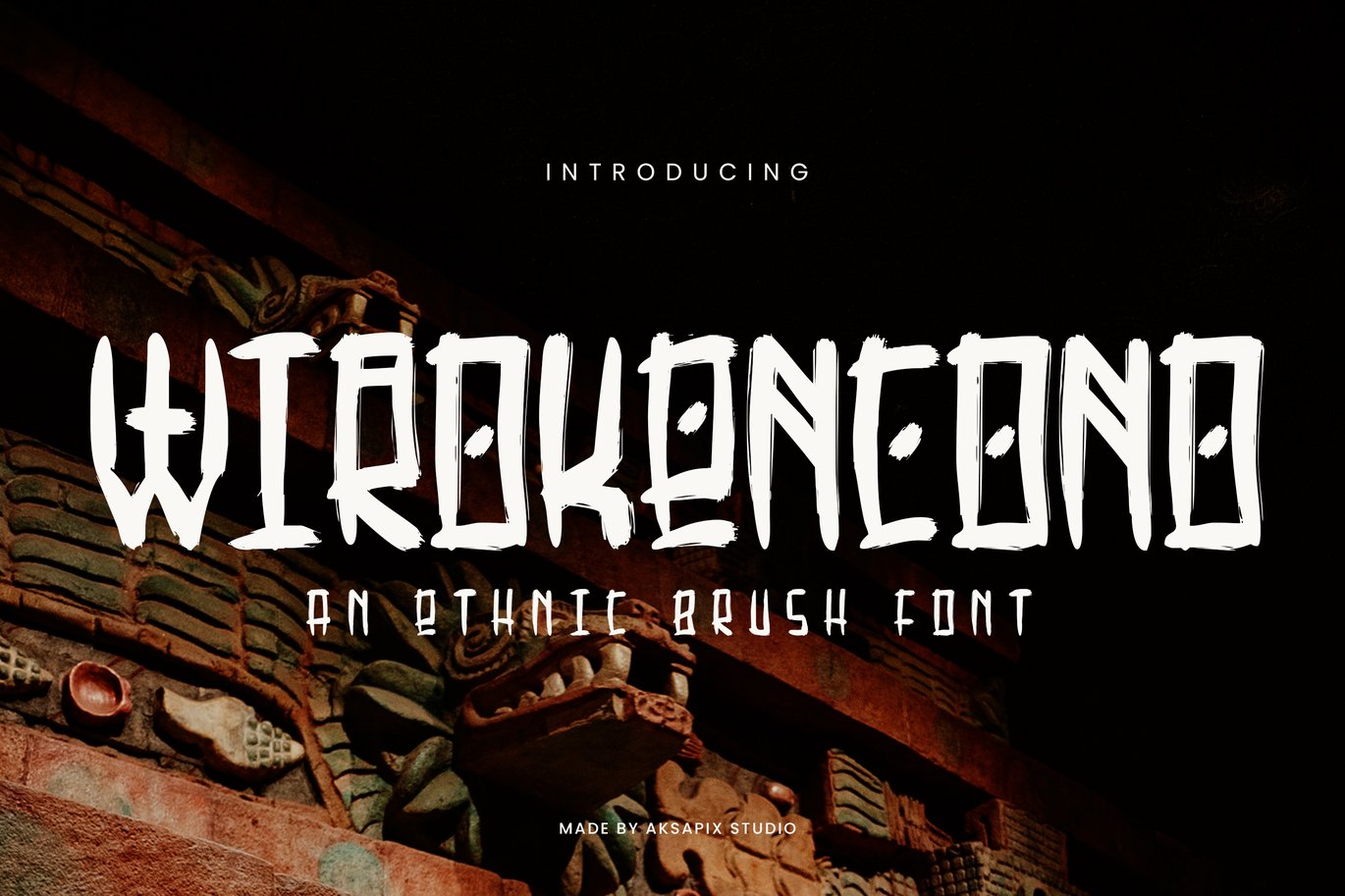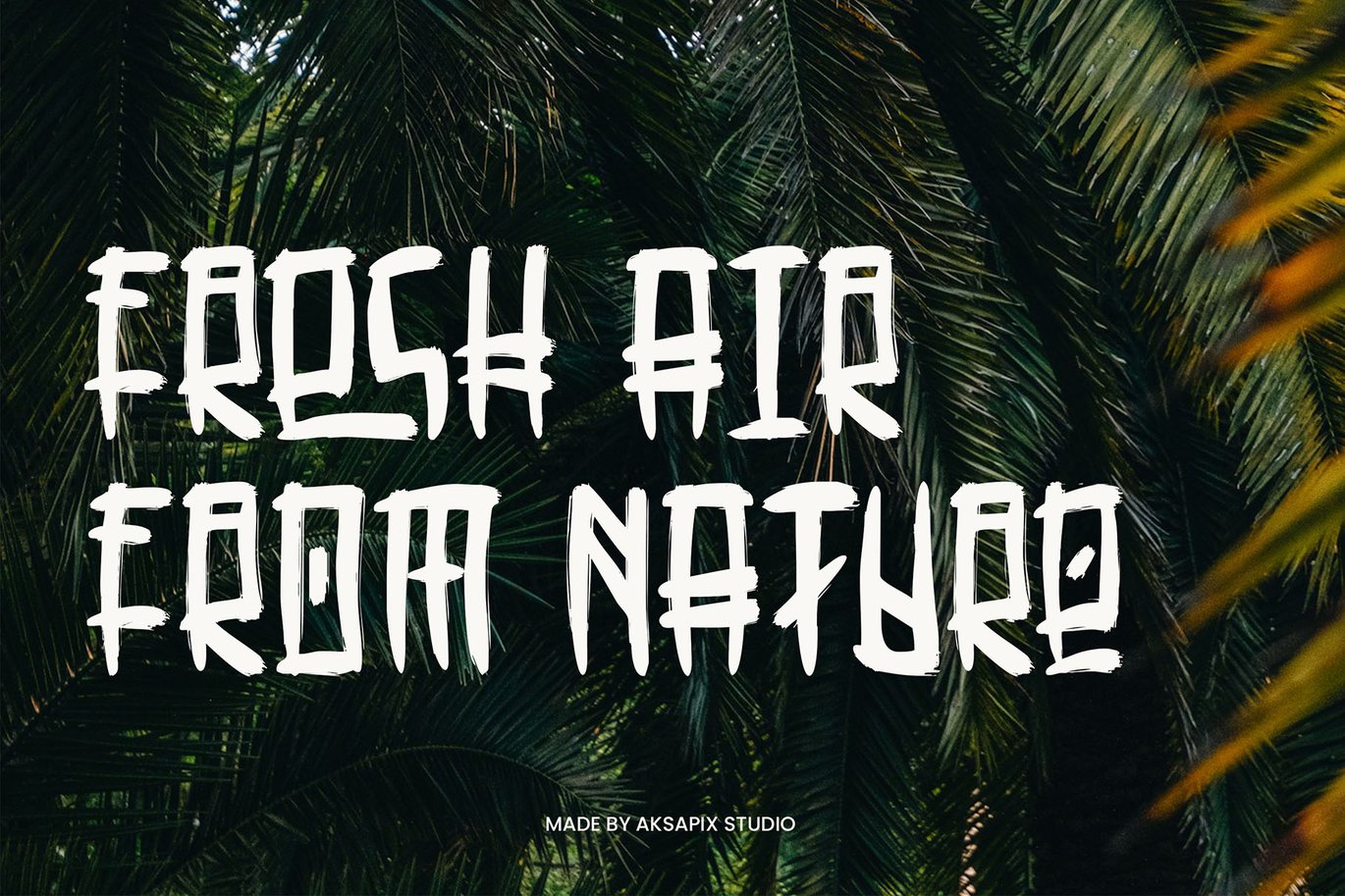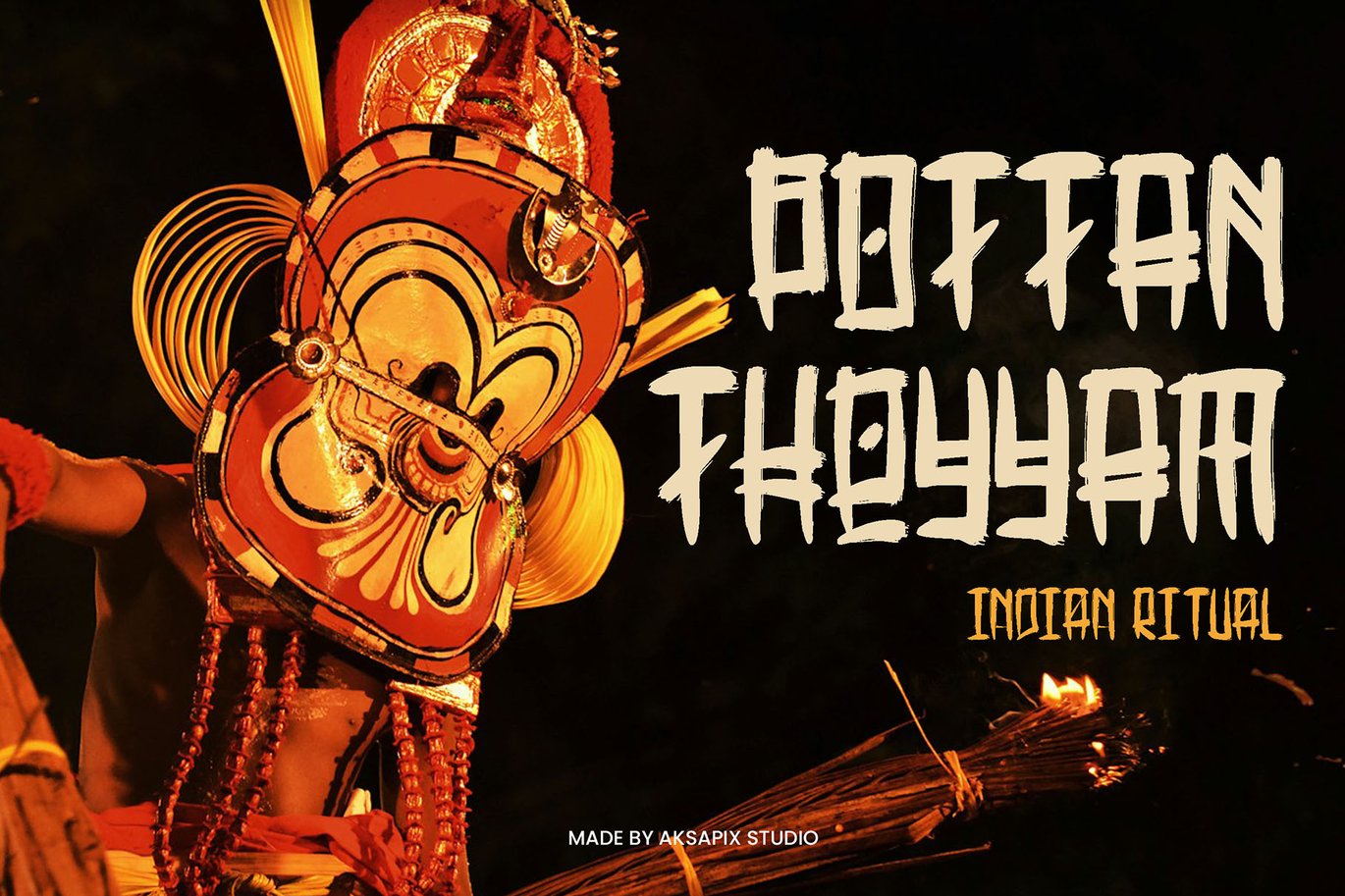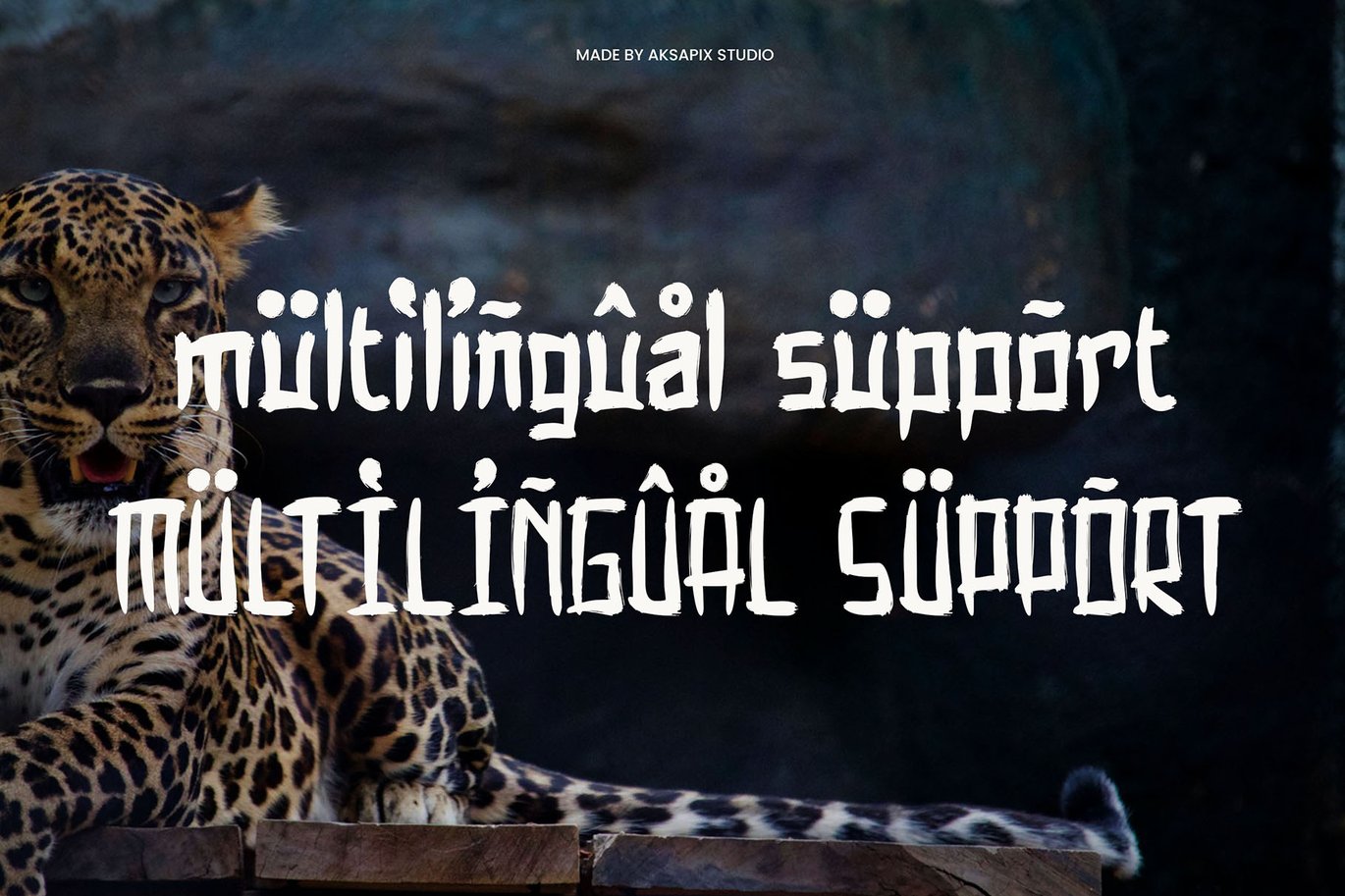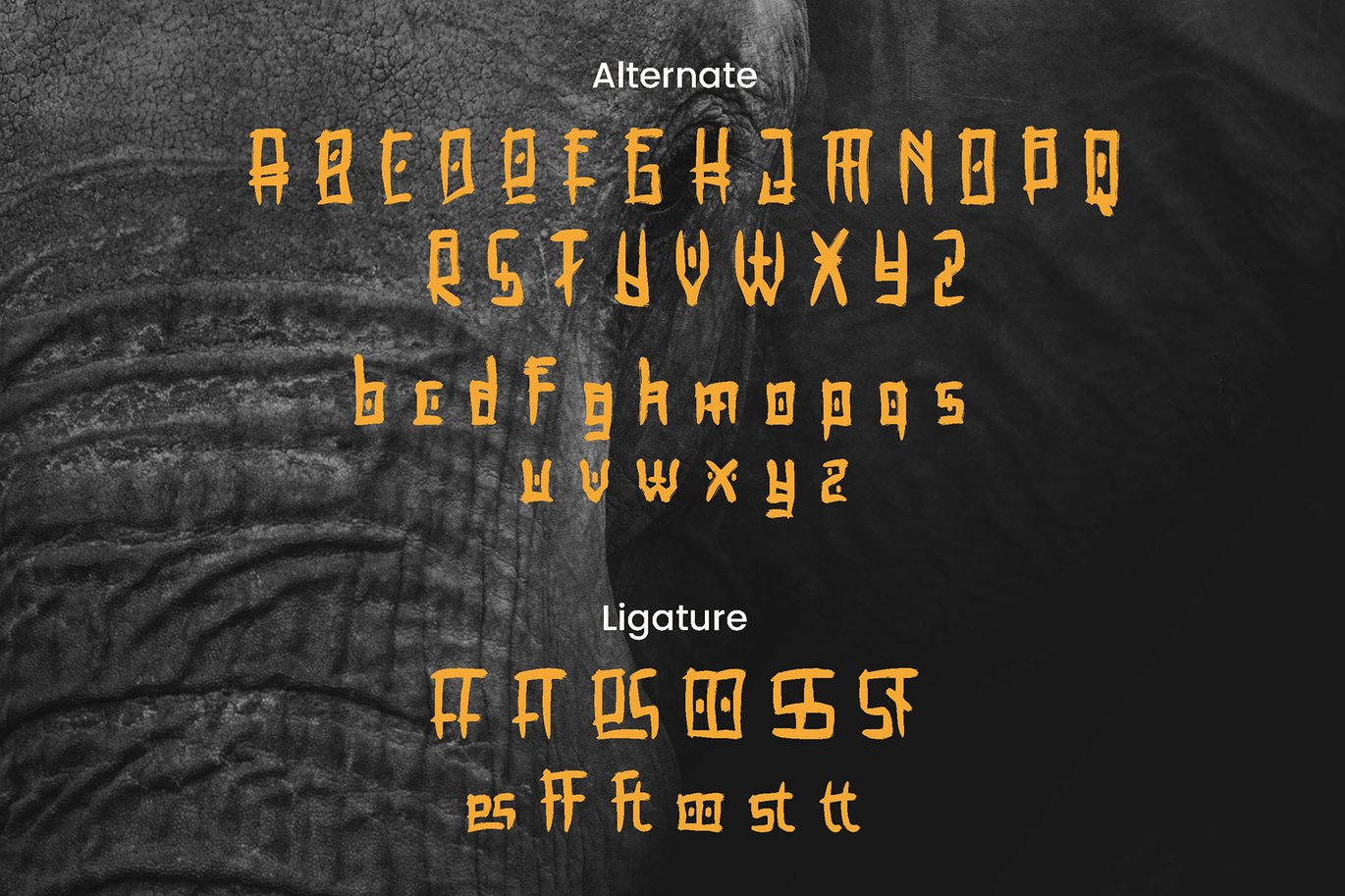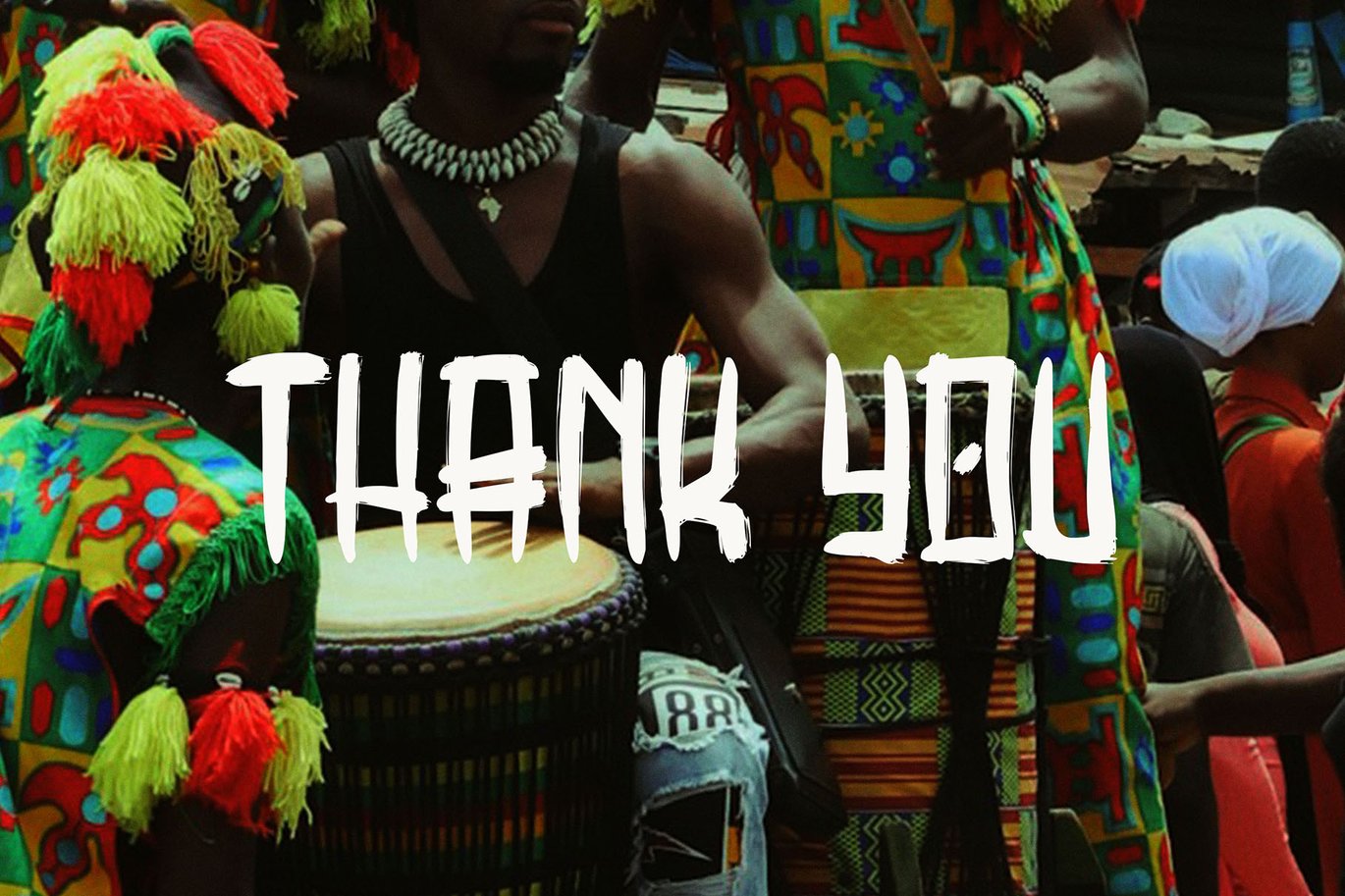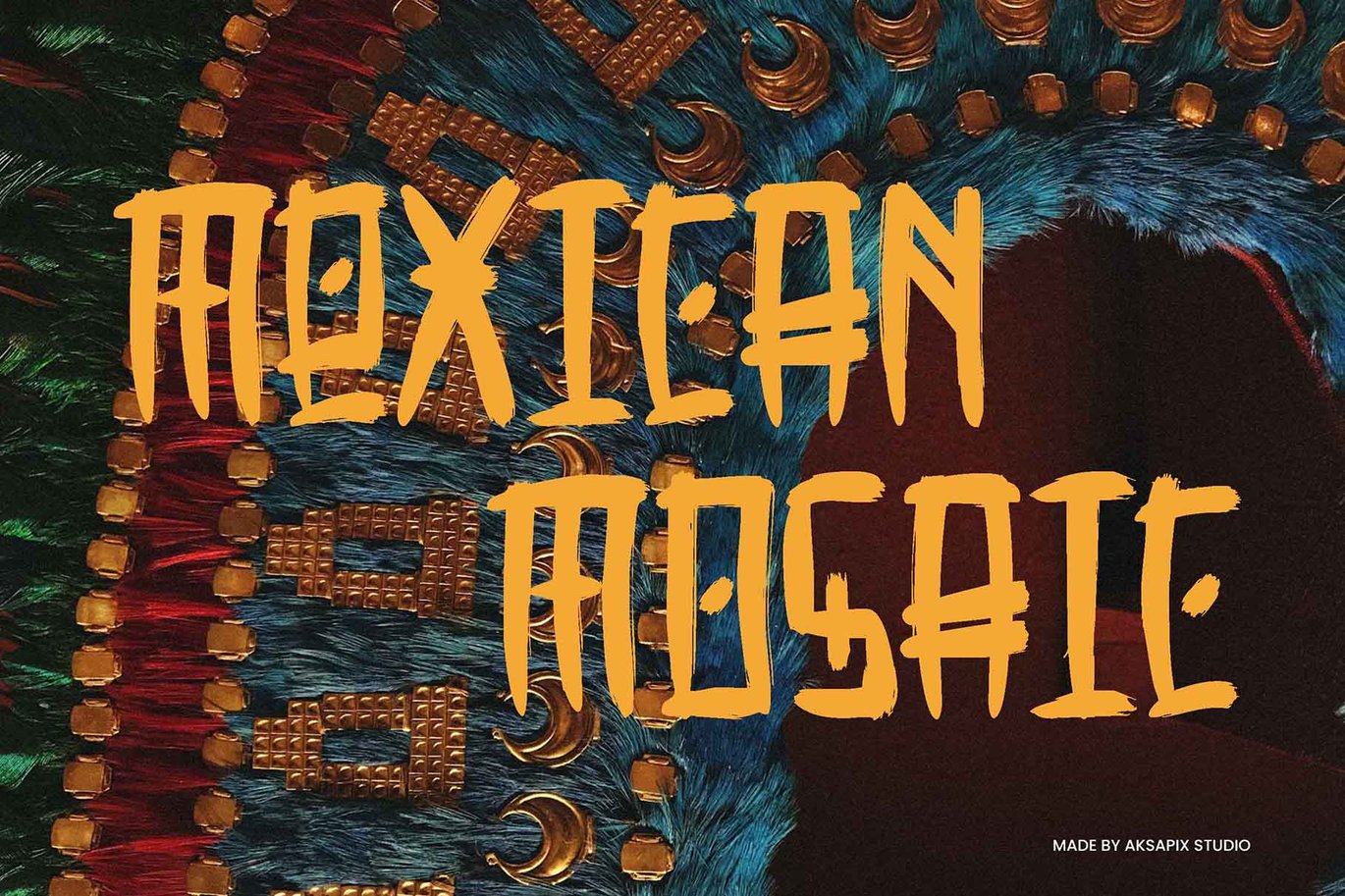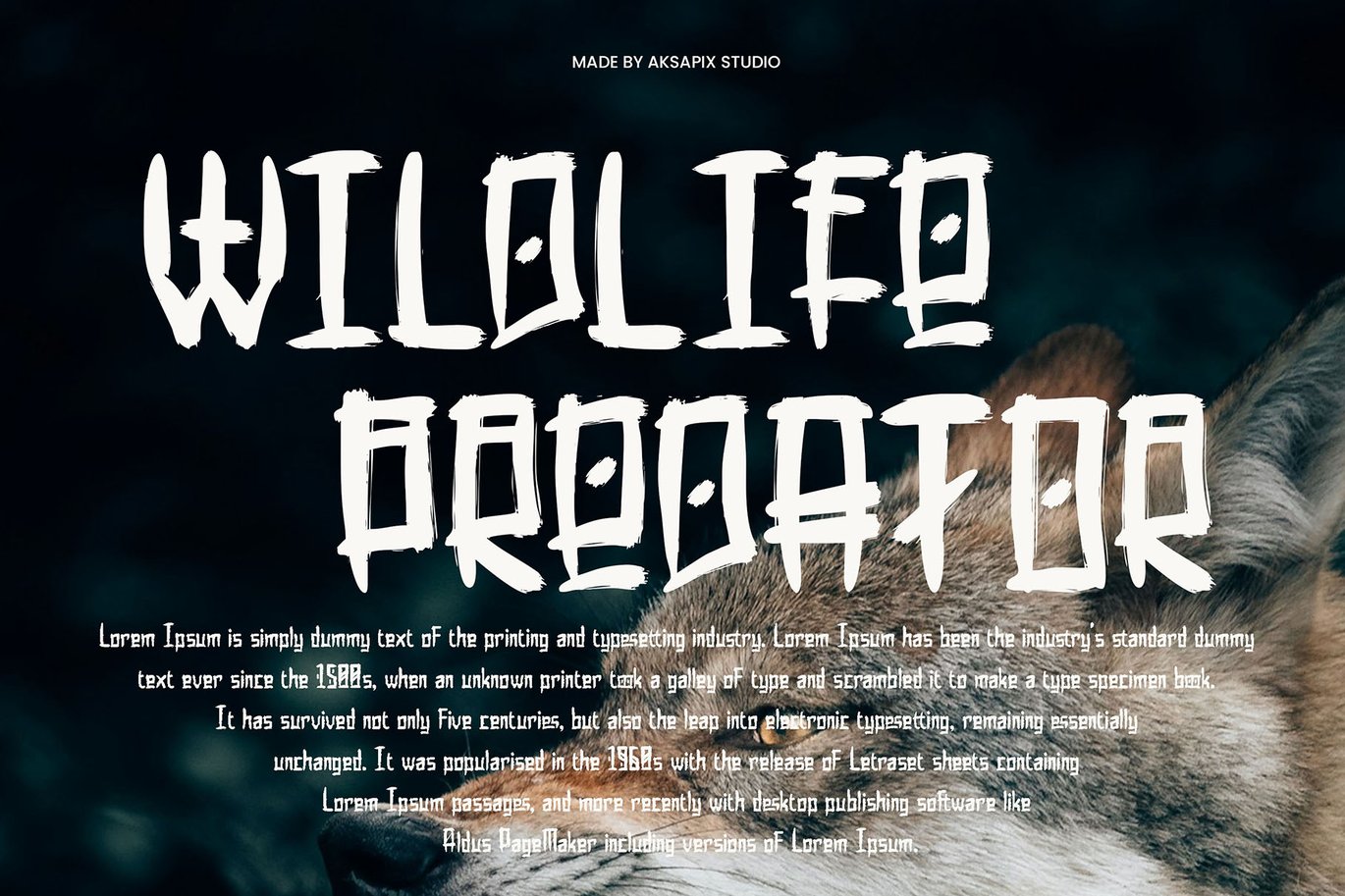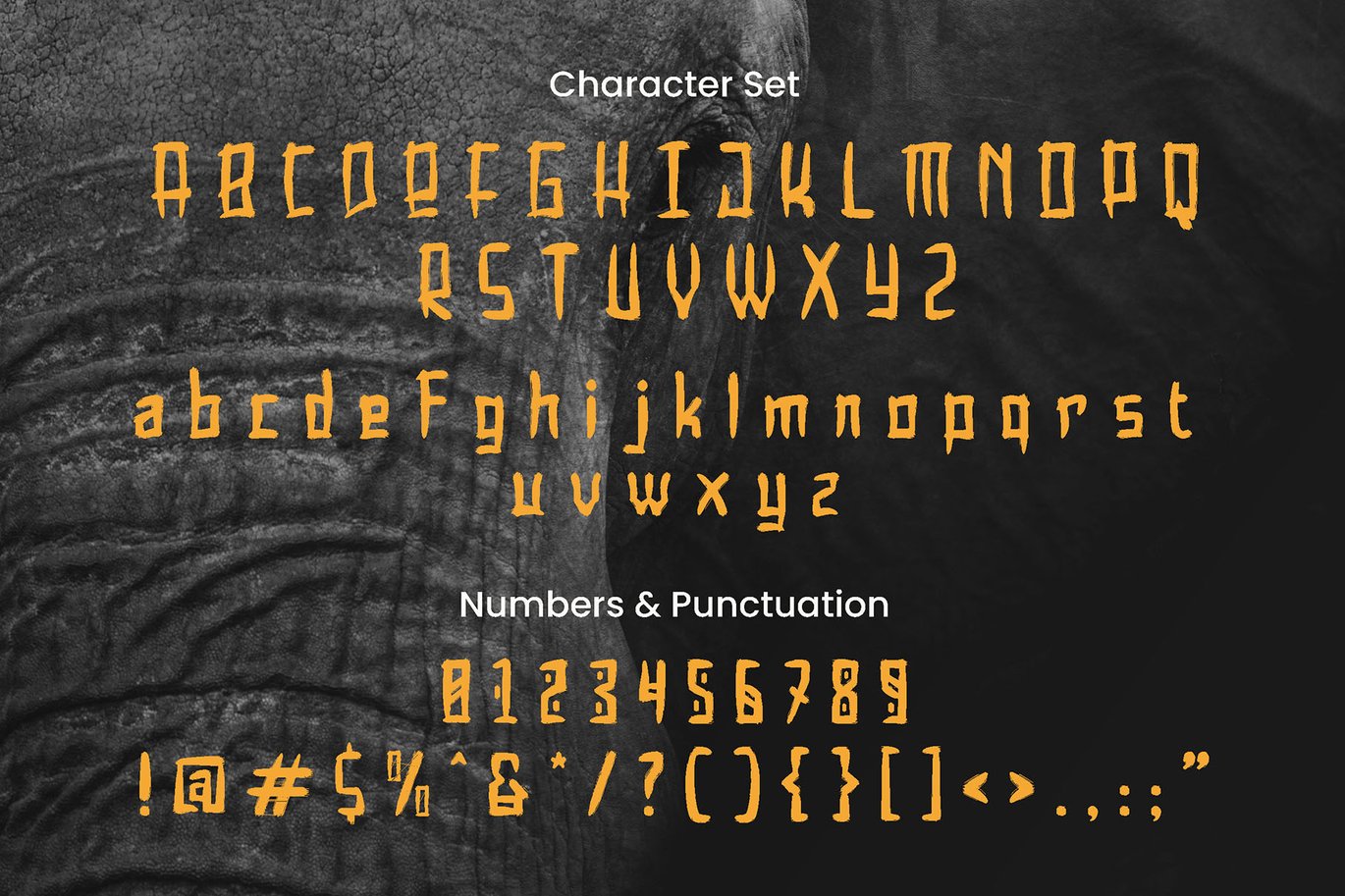
Wirokencono – Ethnic Brush Font
Introducing Wirokencono – Ethnic Brush Font, a font that embodies the beauty and spirit of traditional ethnic design. This typeface features a complete set of uppercase and lowercase letters, punctuation, stylistic alternates, and multilingual support. Perfect for adding a cultural and artistic touch to your projects, Wirokencono offers a unique and expressive solution for all your creative needs.
- Uppercase & Lowercase: Full range of letters for versatile typography.
- Punctuation: Comprehensive set for complete and polished designs.
- Stylistic Alternates: Additional character variations for creative flair.
- Multilingual Support: Compatibility with various languages and locales.
Perfect For:
- Cultural Branding
- Traditional Art Posters
- Ethnic Invitations
- Handmade Packaging
- Folk-Themed Social Media Graphics
Embrace the charm of ethnic design with Wirokencono – Ethnic Brush Font. Whether you’re working on cultural branding, traditional art posters, or ethnic invitations, this font will bring your projects to life with its unique and artistic character.